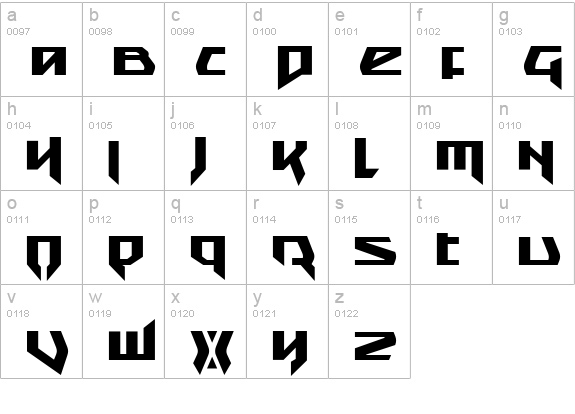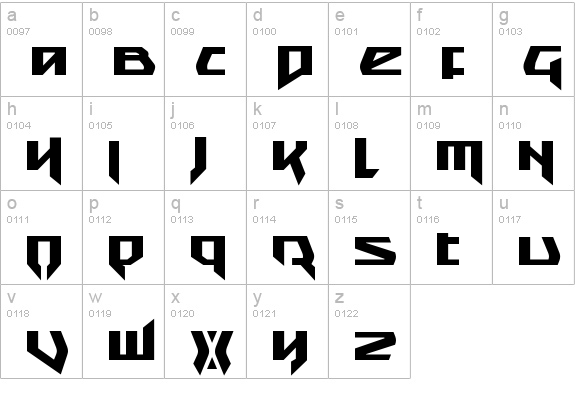
Snubfighter Bold is a strong, high-contrast variant in the Snubfighter typeface family \xE2\x80\x94 well suited to headlines, attention-grabbing titles, and strong calls-to-action.
Introducing Snubfighter Bold font, a versatile and eye-catching typeface designed to make your projects stand out. With its bold and striking appearance, Snubfighter Bold is perfect for headlines, titles, and branding materials that demand attention. The clean lines and unique design of this font give it a modern and stylish edge that will elevate your designs to the next level. What's more, Snubfighter Bold is available for free download at FontsMarket.com, making it accessible to designers and creatives looking to add a touch of boldness to their work without breaking the bank. Whether you're working on a poster, logo, website, or any other design project, Snubfighter Bold is sure to make a strong impression. Download it today and see the difference it can make in your designs!